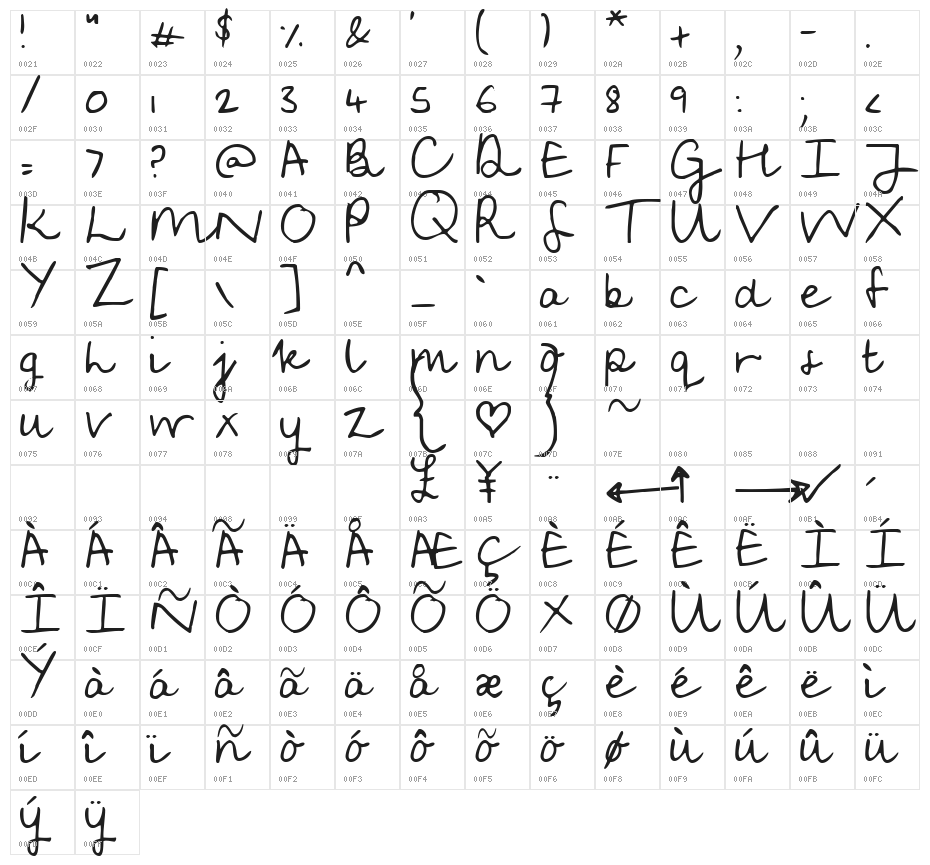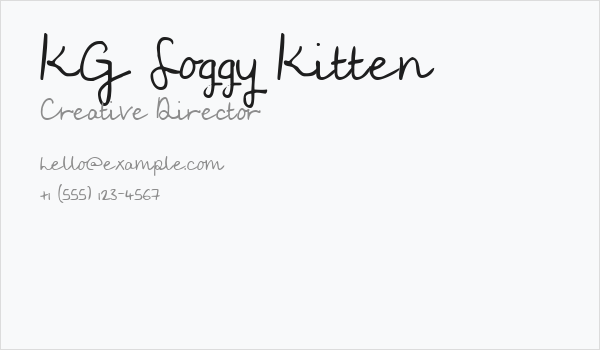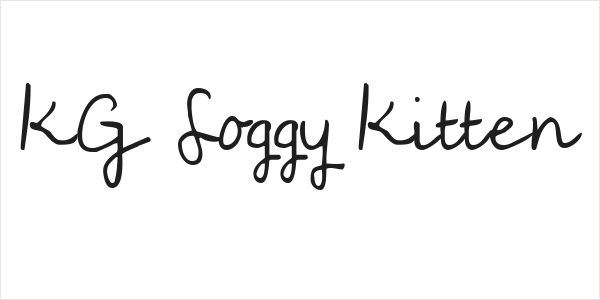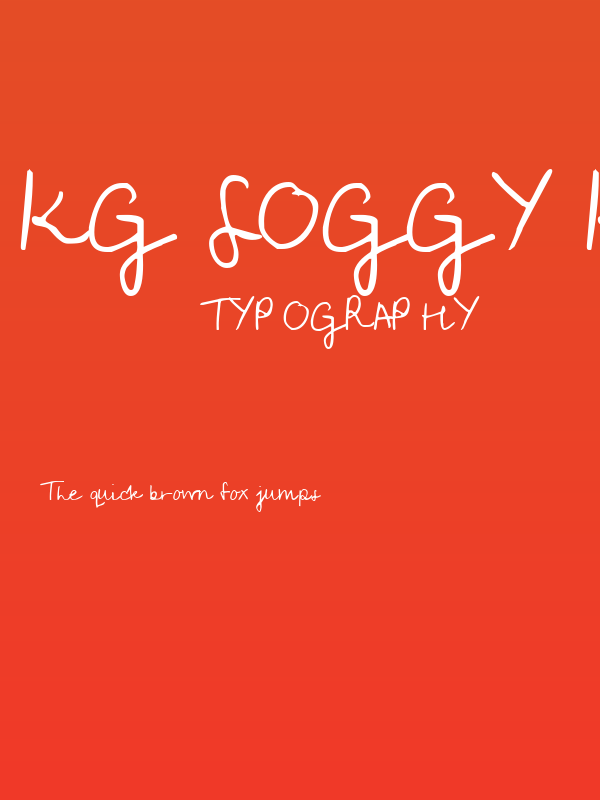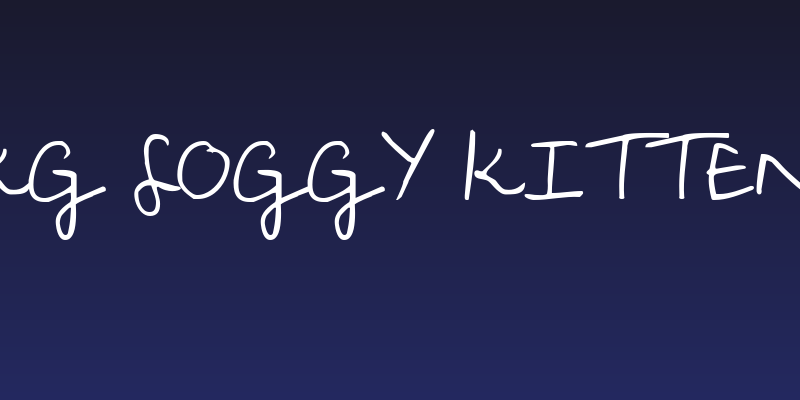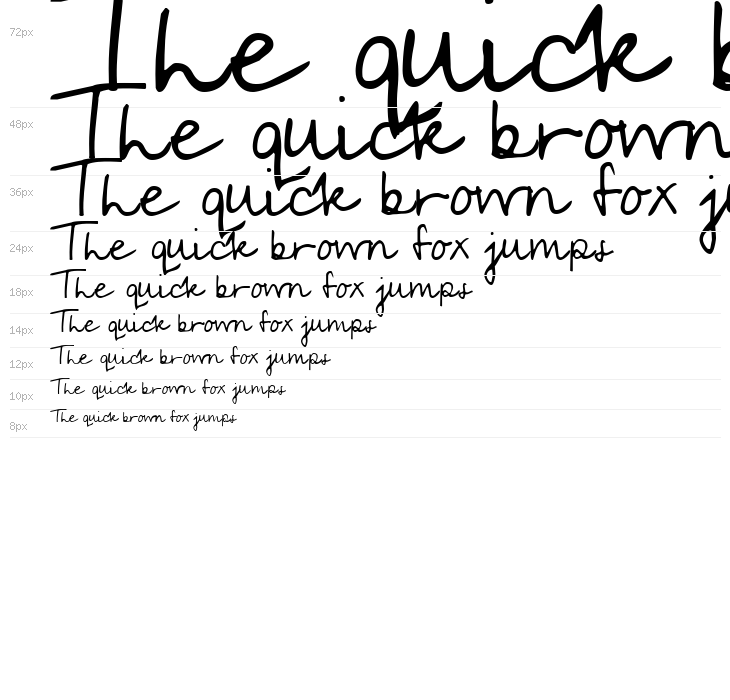
KG Soggy Kitten Font
KG Soggy Kitten Description
This playful and whimsical font features a handwritten style with a casual and friendly appearance. The letters are slightly irregular, giving it a natural and organic feel. The strokes are smooth and fluid, with a moderate thickness that maintains readability while adding a touch of personality. The uppercase and lowercase letters are well-balanced, and the numbers and special characters are consistent with the overall style. This font exudes a sense of fun and creativity, making it ideal for projects that require a personal touch.
| Use Case | Greeting cards, Children's books, Personal projects |
| Proposed Projects | Ideal for greeting cards, children's books, playful branding, and personal projects. |